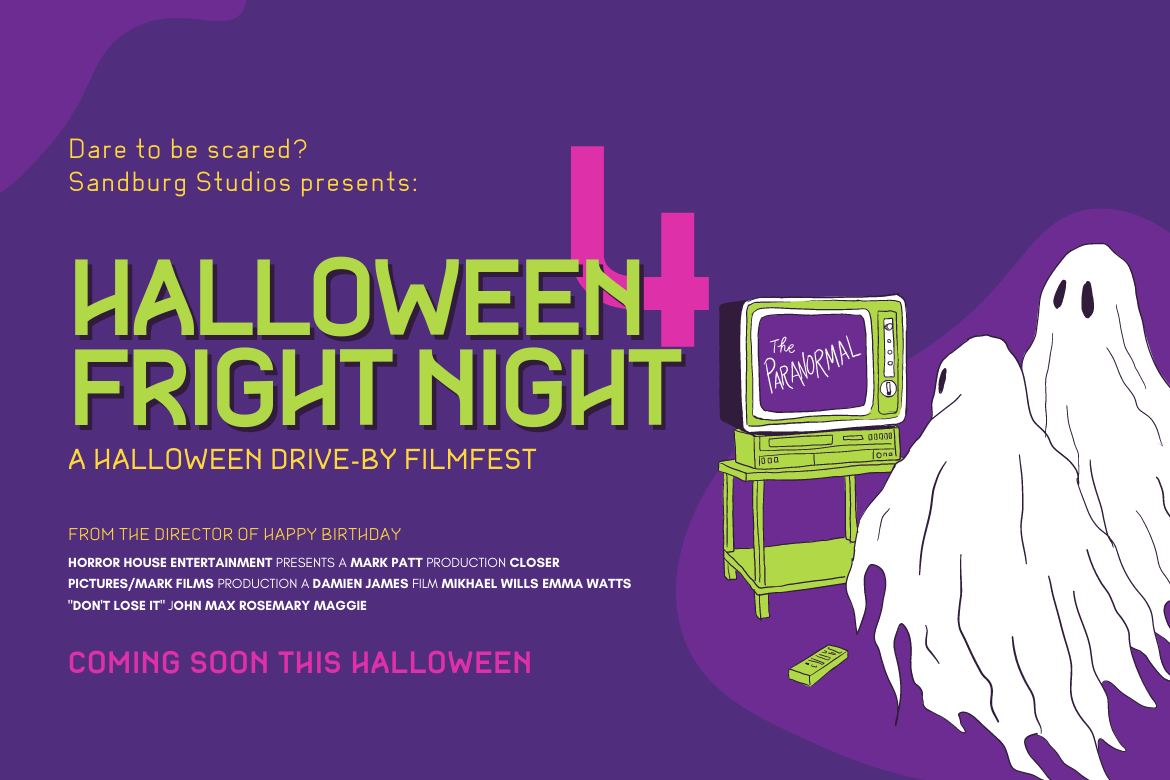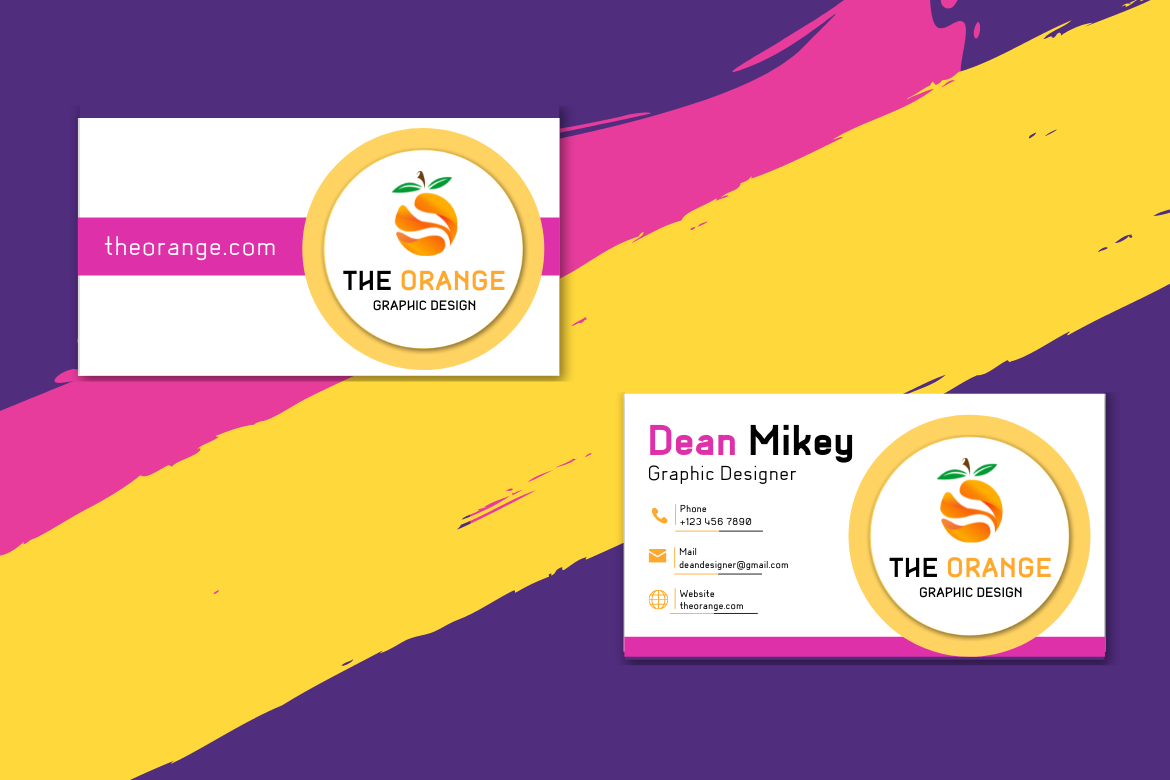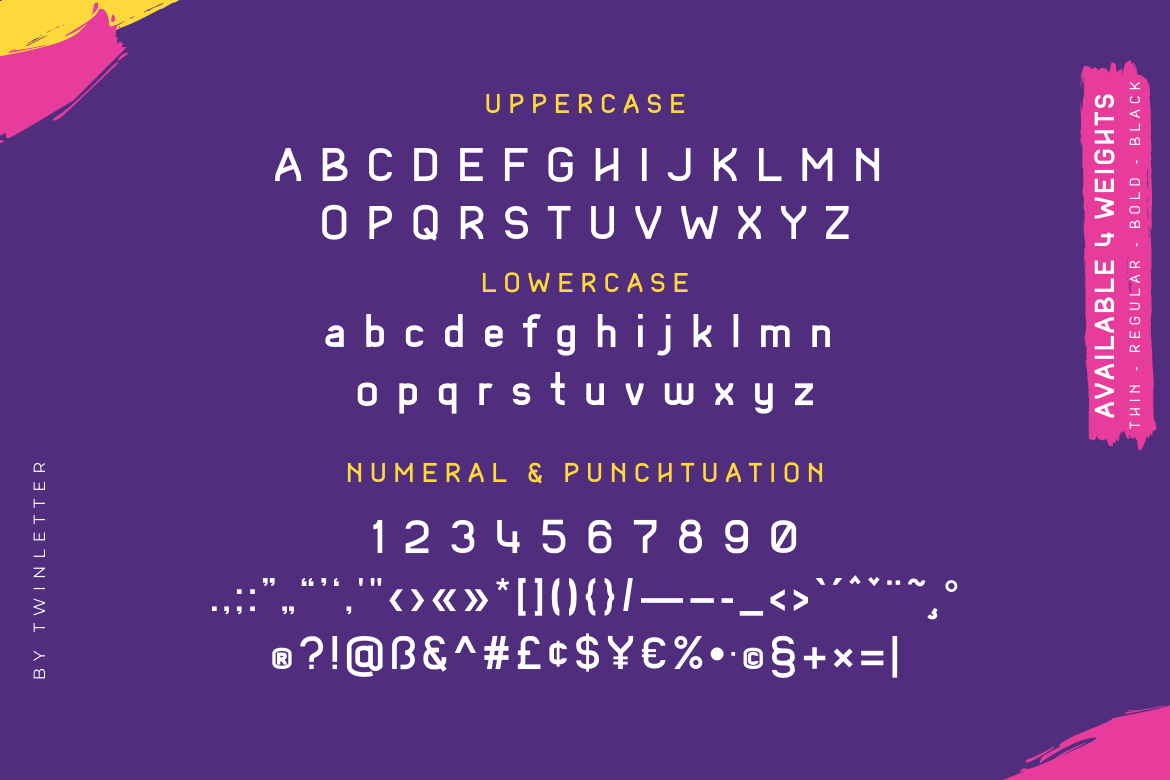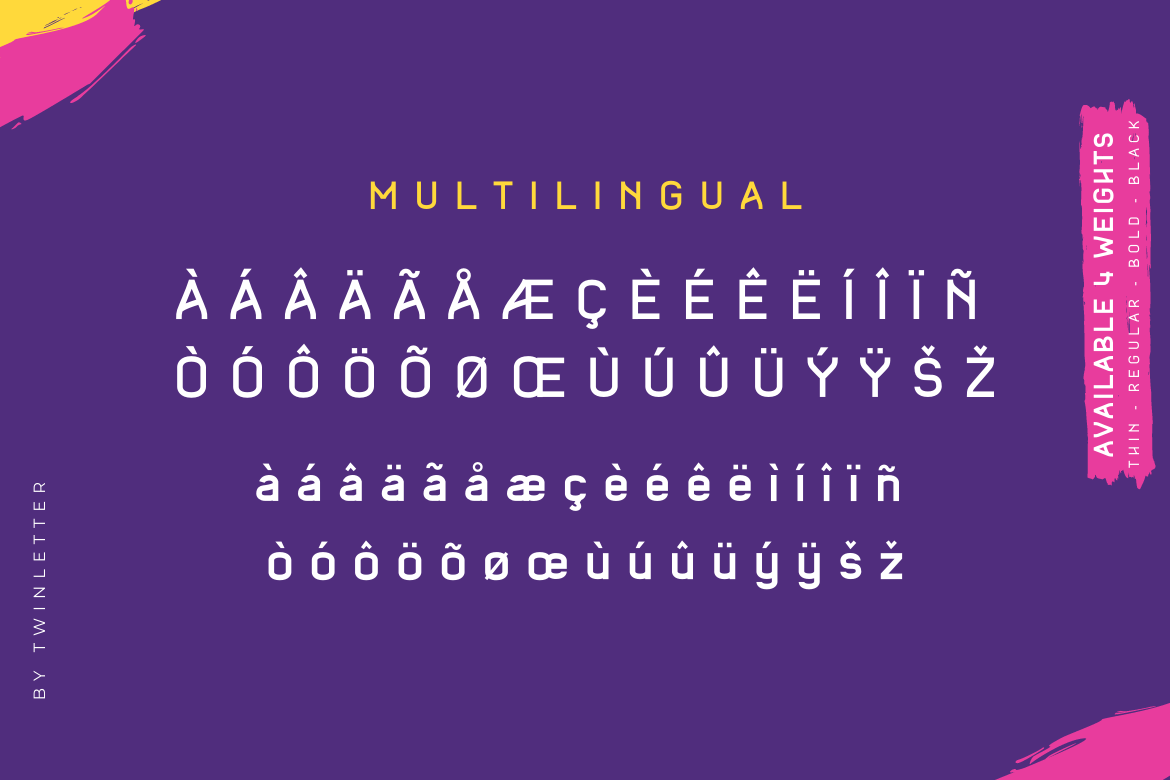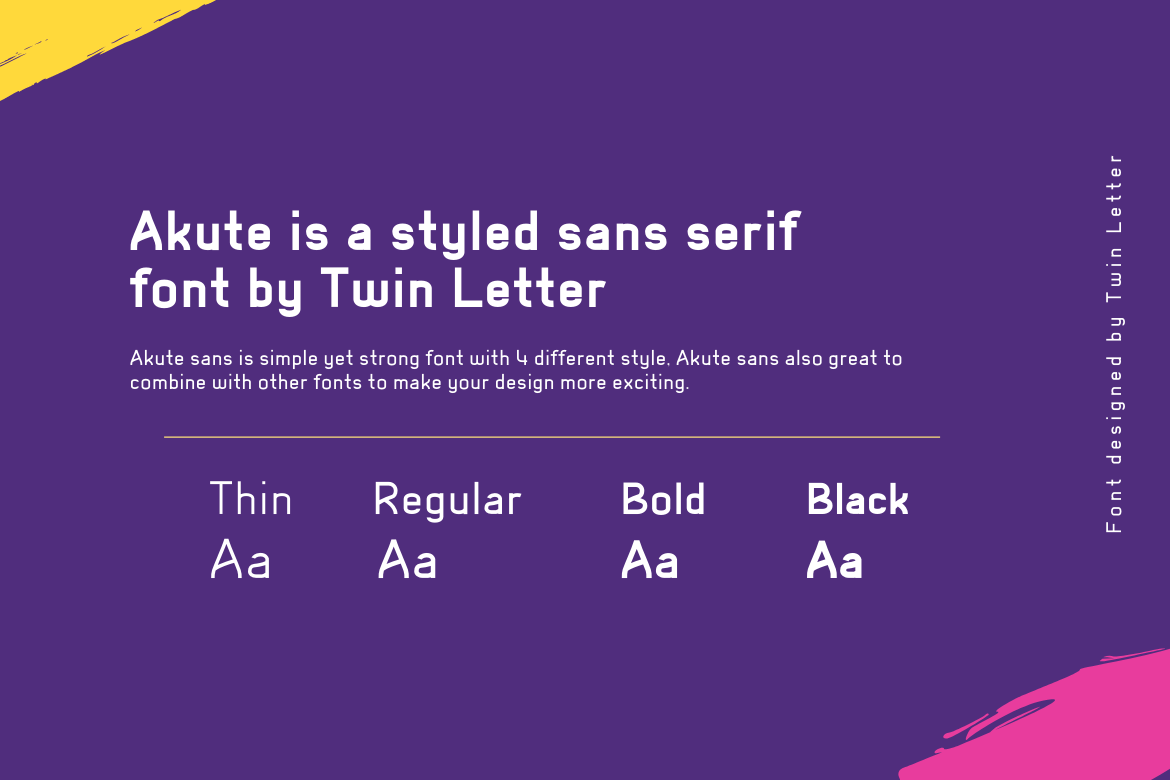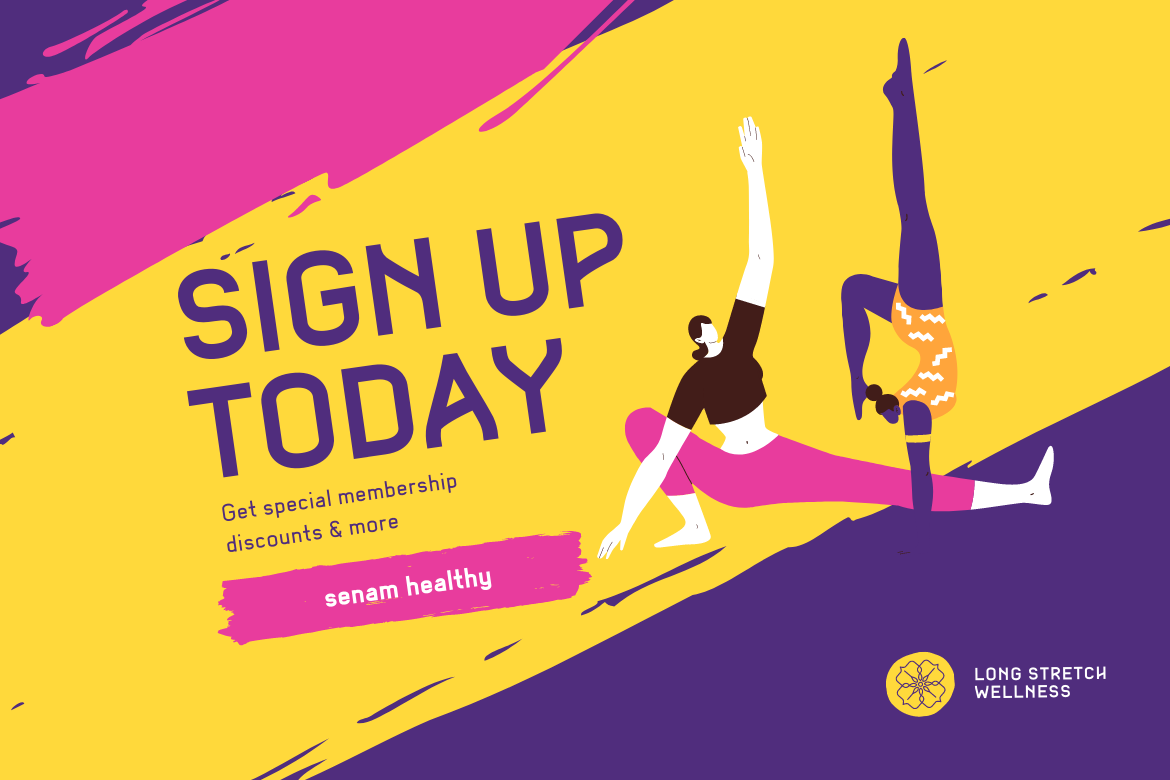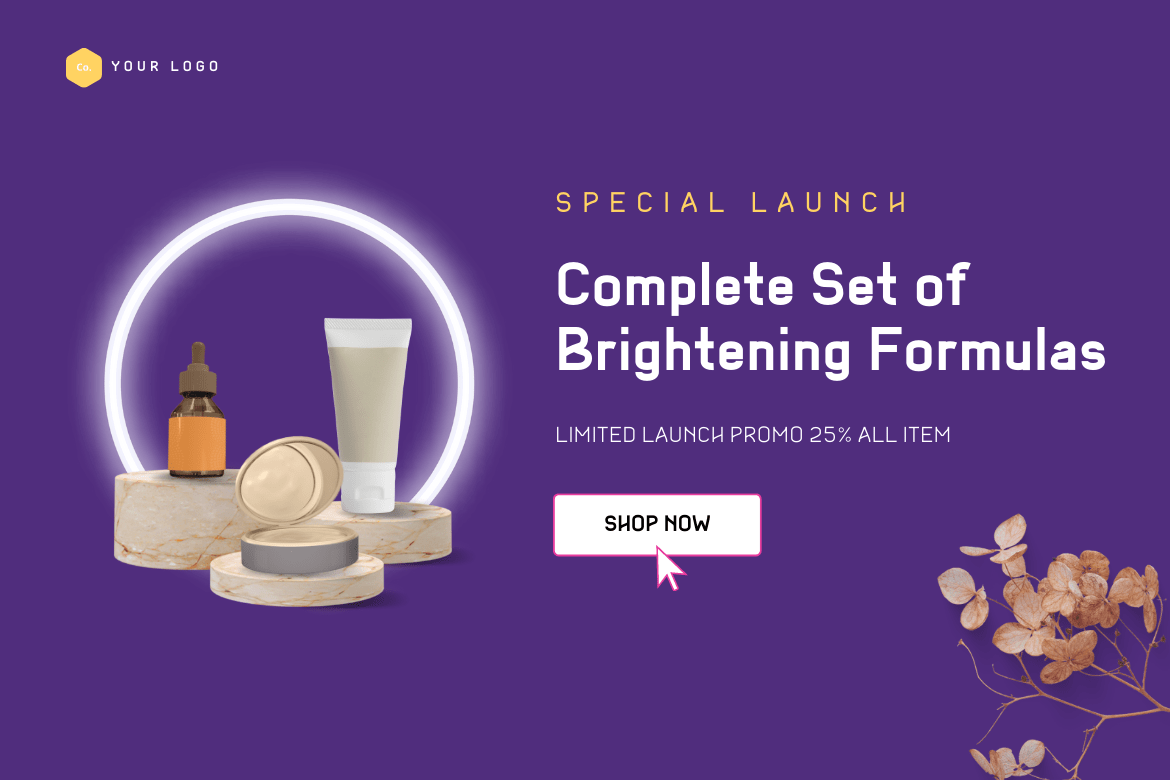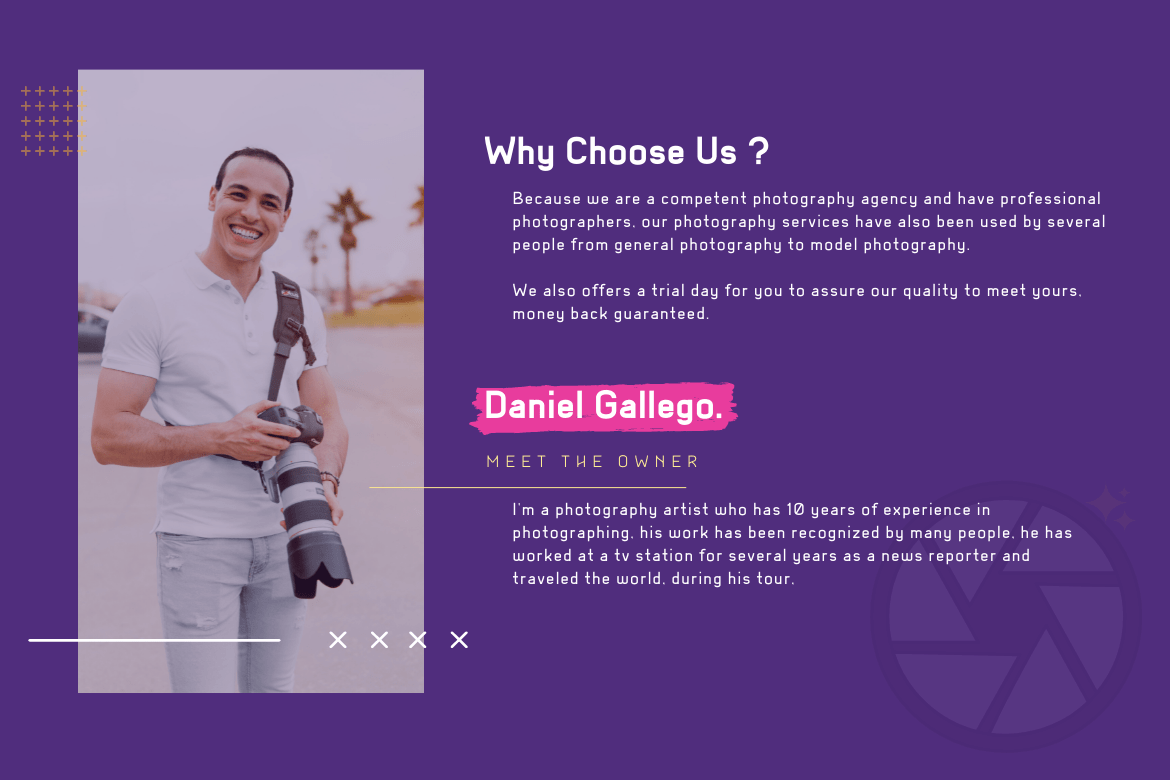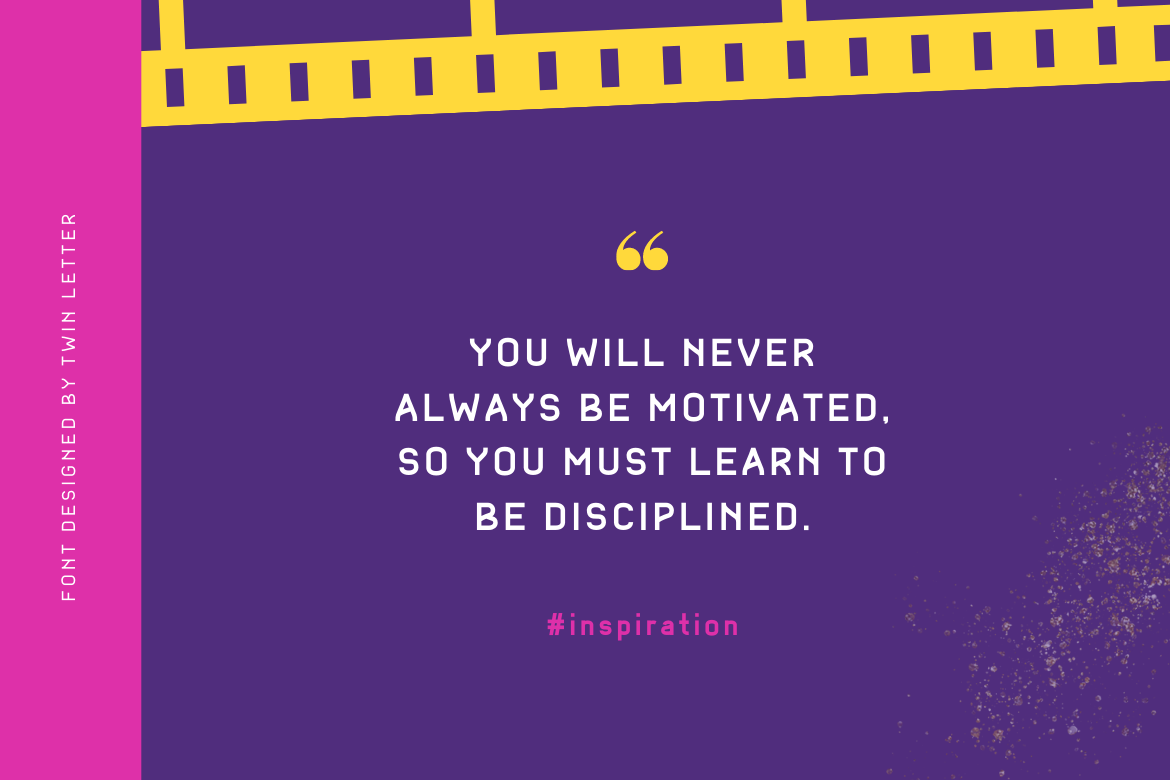
- Akute
Thin
Bold
Black
Akute is a sanserif font we designed just for you, whether for advertising, branding, or something else. Add value to your brand with a unique form. It’s a terrific opportunity to take advantage of designers or product owners who are looking for a way to make their ideas more classic and elegant. In particular, it is important to meet the typeface, linguistic support, numerals, punctuation marks, and four alternative options.